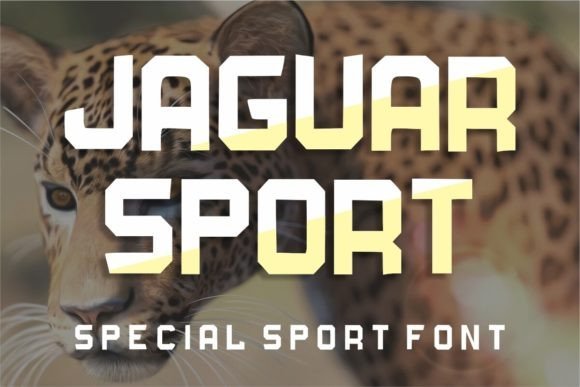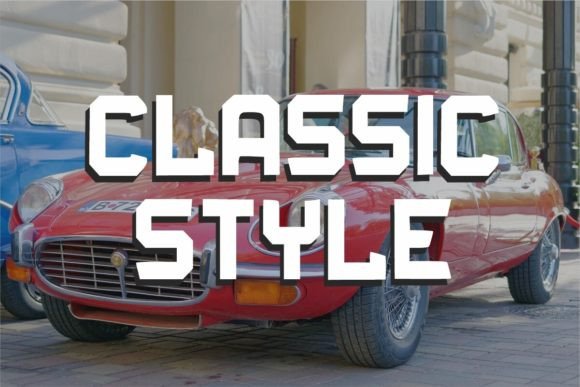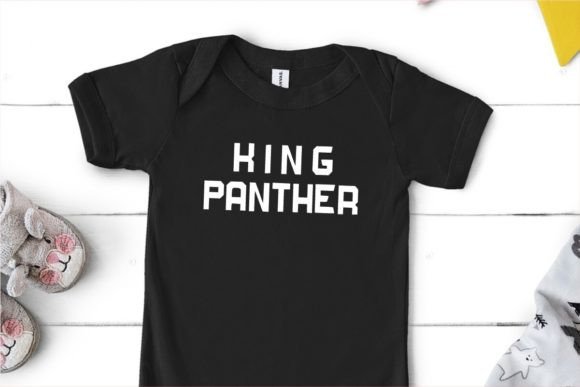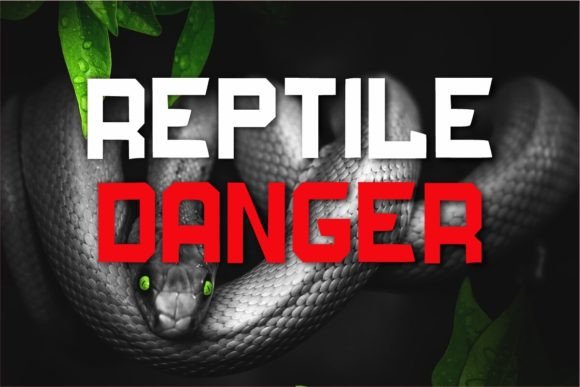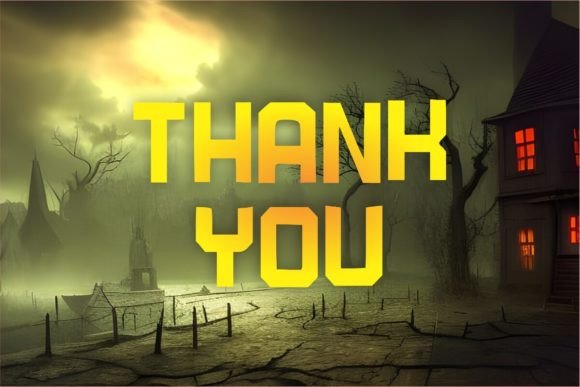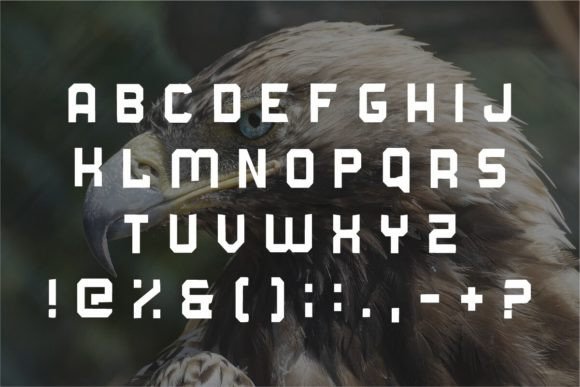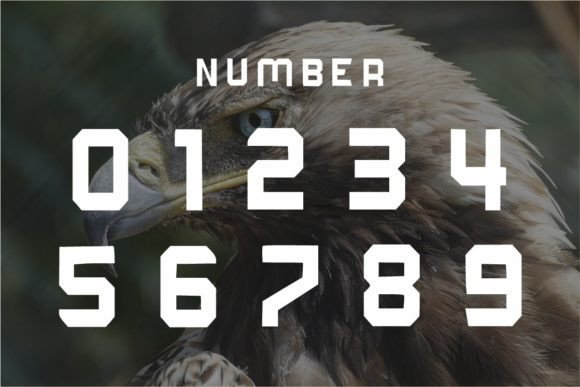
Unleash the Power of Athletic Design with Jaguar Sport Font
Have you ever felt that rush of adrenaline as you’re about to launch a new sports brand or design a jersey for your favorite team? The excitement is palpable, and the possibilities are endless. But what if you could bottle up that energy and bring it to life through typography? Enter Jaguar Sport Font, a dynamic and modern sport font designed to capture the essence of athleticism and energy.
This bold and sleek font is more than just a design element – it’s a statement of strength and competitiveness. Whether you’re designing sports team logos, posters, or jerseys, Jaguar Sport Font is the perfect companion to help you convey the intensity and speed of athletic events. As a designer, you know the value of finding the right font to elevate your designs and leave a lasting impression. With Jaguar Sport Font, you’ll be able to unleash the full potential of your creative vision and take your designs to the next level.
Jaguar Sport Font Key Features
- Font Family: Jaguar Sport Font is a sans-serif font family designed specifically for sports and automotive applications.
- Size Range: The font family is available in 6 font weights, from Light to Extra Bold, offering flexibility for various design requirements.
- Unique Characteristics: The font features a dynamic, high-contrast design with optimized letterforms for improved readability, making it ideal for sports and automotive branding.
- Language Support: The font family supports a wide range of languages, including Latin, Cyrillic, and Greek scripts, making it suitable for global branding efforts.
Jaguar Sport Font Review
Overall, I think the Jaguar Sport Font has some great qualities that make it a solid choice for certain design projects. ✨ The font’s bold and modern design makes it perfect for sports-related branding and advertising. The font’s dynamic feel and high contrast make it easy to read, even at smaller sizes.
The font also features a wide range of weights and styles, making it versatile and easy to customize. ✨ The font’s clean and minimalistic design makes it suitable for use on digital and print materials.
- Modern and dynamic feel
- High contrast and easy to read
- Wide range of weights and styles
- Clean and minimalistic design
- May be too bold for certain design projects
- Could be improved with more nuanced weight options
- May not be suitable for use in formal or professional settings
- Some users may find the font too loud or overpowering
- ⚠️ Some of the font’s characteristics, such as its high contrast, may make it difficult to use in situations where readability is a concern.
Overall, I think the Jaguar Sport Font is a solid choice for designers who need a bold and modern font for sports-related projects. While it has some limitations, its strengths make it a great option for the right design projects.
Common Use Cases for Jaguar Sport Font
The Jaguar Sport Font is ideal for sports-themed designs, such as team logos, jerseys, and promotional materials. It’s also suitable for use in action-packed movies, video games, and advertising campaigns.
The Jaguar Sport Font includes a comprehensive character set, covering Latin, Greek, and Cyrillic scripts. It also supports a wide range of languages, including English, Spanish, French, German, Italian, Portuguese, and many others. This makes it an ideal choice for global brands and applications.